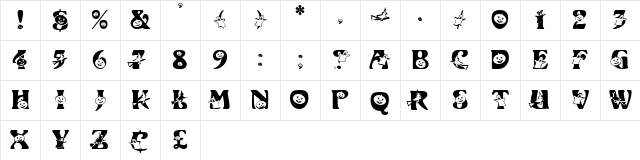
FB HALLOWEEN Regular Free Font
FB HALLOWEEN Regular
Design Context for FB HALLOWEEN
FB HALLOWEEN is a composed and adaptable typeface that performs quietly and consistently across a wide range of design contexts.